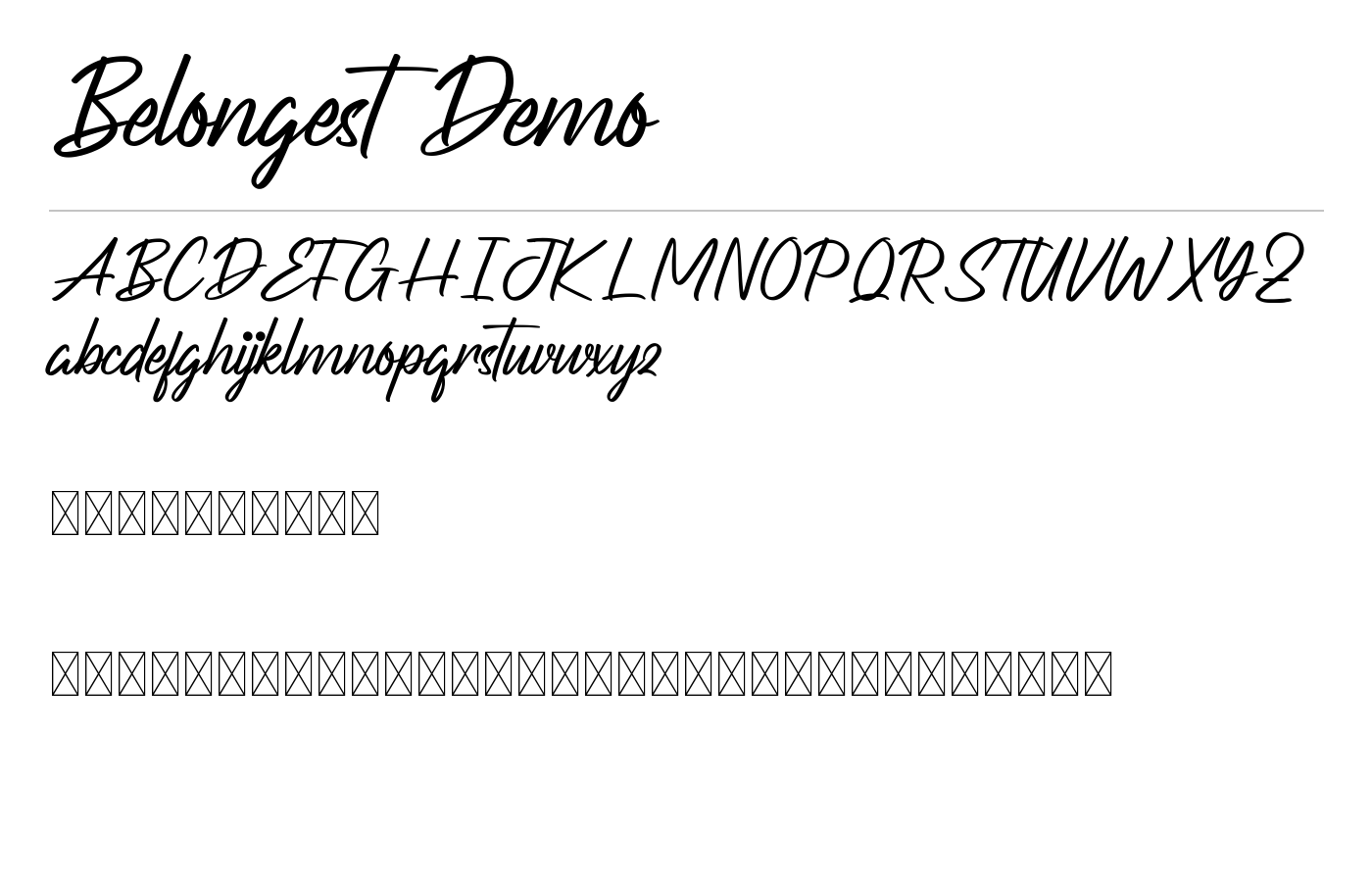
Belongest Demo is a lively, handwritten script font featuring a casual, brush-like style with smooth, flowing strokes. It has a natural, friendly vibe that works well for personal branding, invitations, and creative projects where a warm and approachable feel is desired. This font shines in headlines and logos, giving designs a distinctive and playful touch.
Belongest Demo Font
About Belongest Demo Font
| Font family | Belongest Demo Font |